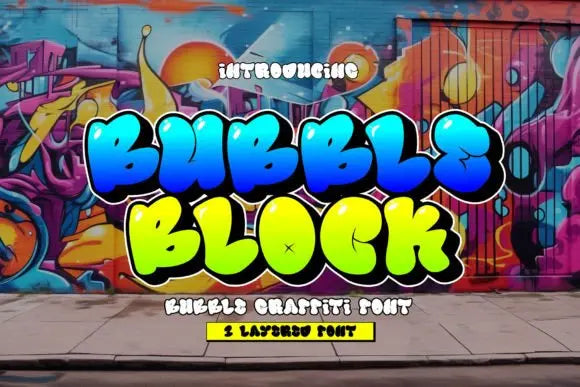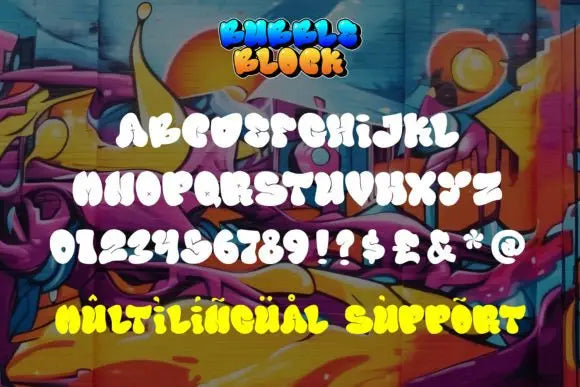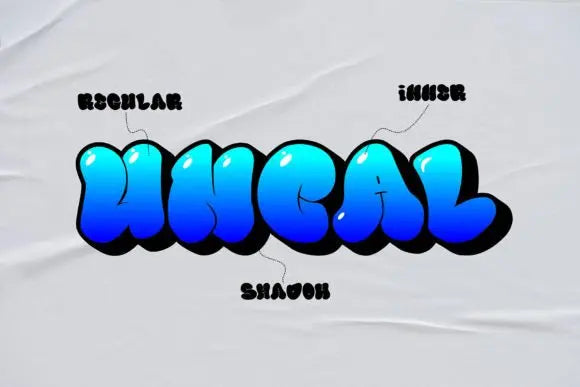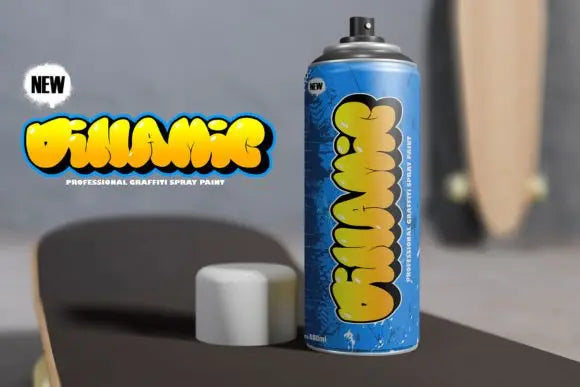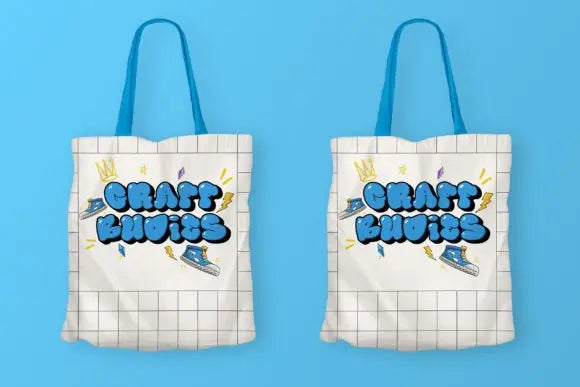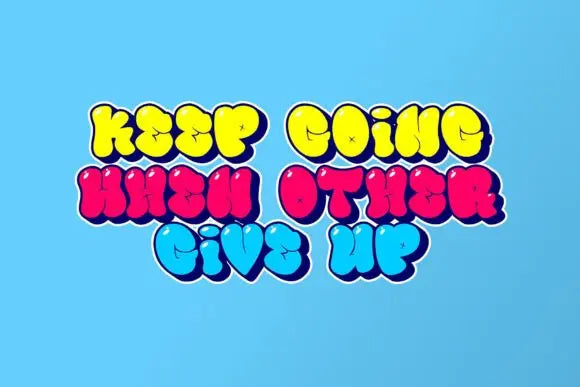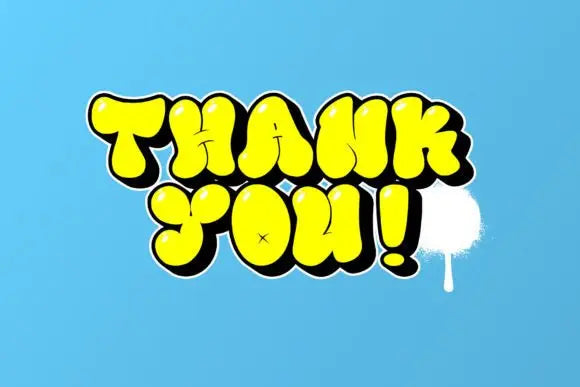
Bubble Block Font
Elevate Your Designs with Bubble Block Font
Looking for a high-quality typeface to enhance your creative projects? Bubble Block Font by Handsign.Studio is a professionally designed font that brings style, versatility, and readability to any design. Whether you're working on branding, posters, social media graphics, or editorial layouts, this typeface adds a unique touch to your work.
Why Choose Bubble Block Font for Your Projects?
This font is designed to be both visually striking and highly functional. With its carefully crafted letterforms, Bubble Block Font works beautifully in both digital and print projects. Whether you need a bold display font or a subtle yet elegant typeface, this font adapts effortlessly to different creative needs.
Easy-to-Use & Fully Customizable Typeface
Key Features of Bubble Block Font:
✦ Versatile Design – Perfect for logos, branding, and editorial use.
✦ High-Quality Typography – Professionally crafted for clarity and impact.
✦ Customizable – Adjust weight, spacing, and alternates to suit your style.
✦ Perfect for Various Design Needs – Works beautifully in digital and print formats.